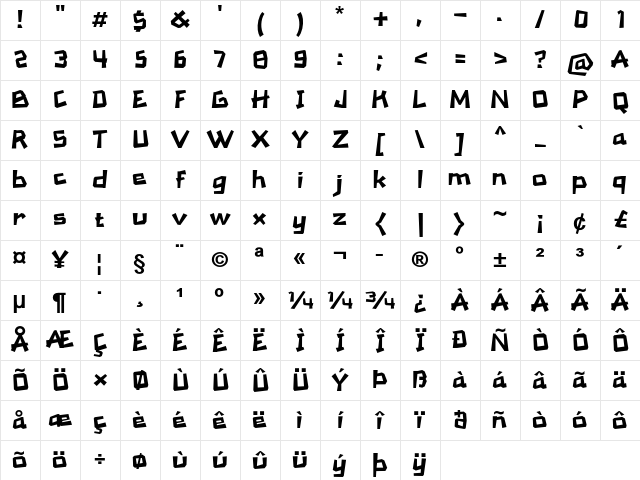
Complete Yapper Regular glyph index. Displaying only characters natively supported by Yapper Regular font.
Yapper is a composed and adaptable typeface that performs quietly and consistently across a wide range of design contexts.